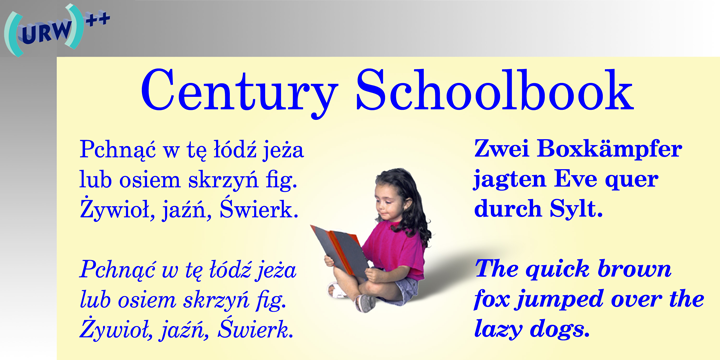
The Century Schoolbook Font is a classic and widely beloved serif typeface, renowned for its exceptional legibility, robust construction, and clear, open forms designed specifically to facilitate reading, especially for educational materials. Imagine its familiar and trustworthy characters gracing the pages of textbooks, adding an authoritative yet approachable feel to children's literature, or providing the solid foundation for educational websites and learning apps. Its wide letterforms and strong serifs also make it an excellent choice for general readability in newspapers, non-fiction books, and any content where clarity and ease of reading are paramount, particularly for young readers or those with visual impairments. Century Schoolbook Font delivers with its unwavering quality, ensuring your message is conveyed with supreme legibility and a classic, reassuring aesthetic.
What makes Century Schoolbook Font so exciting is its unwavering commitment to readability, a characteristic that defines its very purpose. Originally designed for schoolbooks, its features are optimized to reduce eye strain and improve comprehension, making it an ideal choice for long passages of text. Its open counters and clear differentiation between similar characters contribute significantly to its legibility, especially at smaller sizes. It’s more than just a typeface; it’s a foundational tool for education and clear communication, allowing designers to create content that is truly accessible and easy to digest. This font embodies a legacy of promoting literacy and knowledge, making it a reliable and powerful choice for any project that values clarity and an unhindered reading experience.
The Century Schoolbook Font family is typically comprehensive, offering a versatile range of weights and styles to provide extensive typographic control. Beyond the foundational Century Schoolbook Regular, the family often includes options such as Century Schoolbook Italic, Century Schoolbook Bold, and Century Schoolbook Bold Italic. Some professional versions may also offer additional weights or condensed forms, though its core strength lies in its optimal readability in standard text sizes. Furthermore, it often includes an extensive character set to support various languages and academic symbols, making it suitable for a wide range of educational and publishing needs. These diverse family members ensure that designers can create clear and harmonious typographic systems, maintaining a consistent and highly readable aesthetic across all elements of their project, from headings to dense body text.